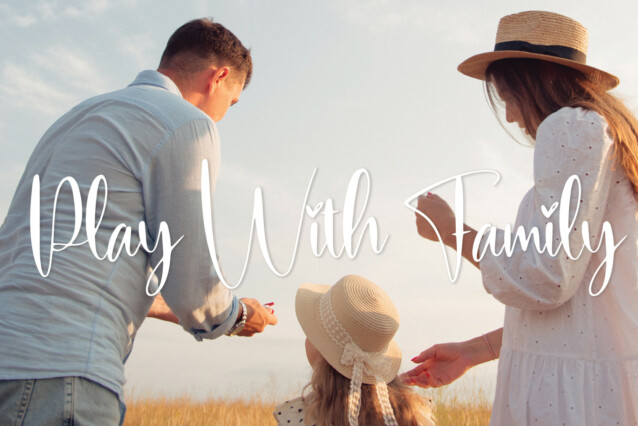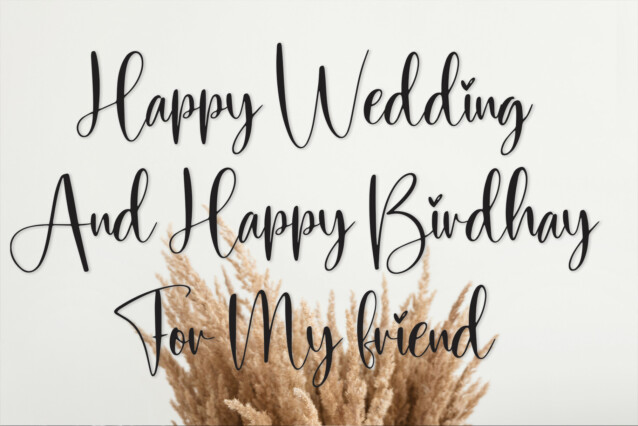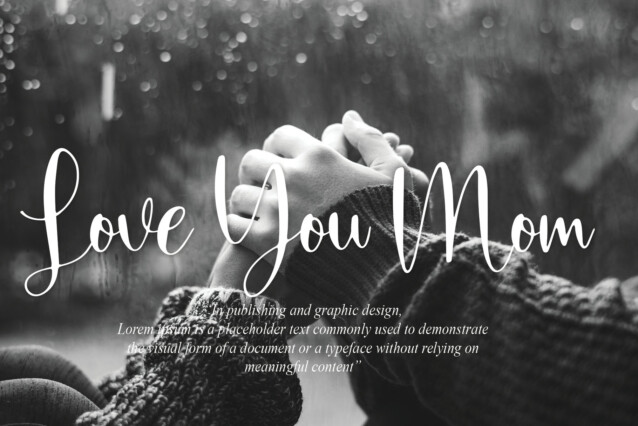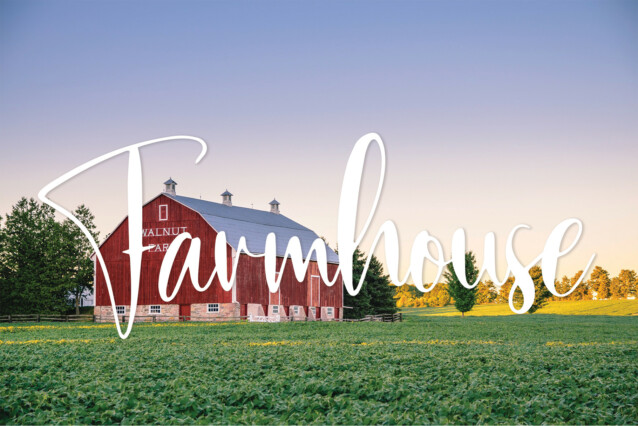
Sunshine Script Typeface
Sunshine Script Typeface is a lovely and creative handwritten typeface. This playful font is perfect for wall displays, wedding invitations, social media post logos, advertisements, product packaging, product designs, labels, photography, watermarks, invitations, stationery, and any project that requires taste handwriting.